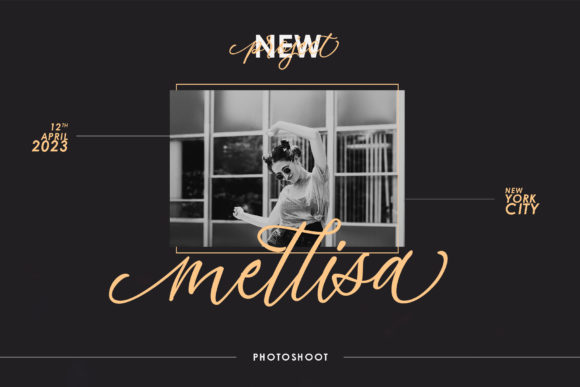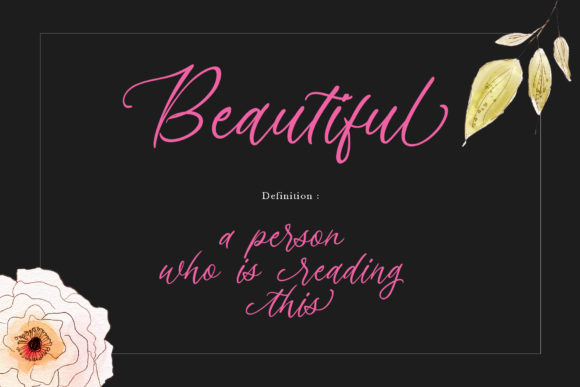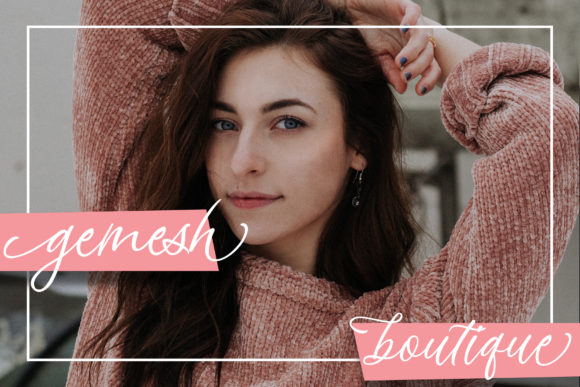
Introduction to Sapha Font
As you sit at your desk, staring blankly at a blank canvas, the cursor blinking away in frustration, it’s moments like these that make you wish you had the perfect design resource to spark some creativity. And that’s exactly what we’re about to dive into – a font that’s been known to bring a smile to designers’ faces: Sapha Font.
With its light and fun handwritten style, Sapha Font has a unique charm that’s hard to resist. Whether you’re working on a high-quality branding project or need a design resource for a creative project, this font is sure to add a touch of personality to your work. And the best part? It’s available for free download, making it a valuable addition to any designer’s toolkit.
Key Features of Sapha Font
- High-Quality Design: Sapha Font is designed with precision and care, ensuring a high-quality result for any creative project.
- Unique Characteristics: Sapha Font features a unique and creative design, making it an excellent choice for designers looking to add a touch of personality to their projects.
Honest Review: Sapha Font
I recently came across the Sapha Font, and I must say, it’s a fantastic addition to any designer’s toolkit. With a high quality aesthetic and transparent background, this font is perfect for creating stunning visual elements for your next creative project.
Here are some of the things that really stand out about the Sapha Font:
- ✨ Elegant and refined design that adds a touch of sophistication to any text
- ✨ Highly customizable, making it easy to adjust to suit your design needs
- ⚠️ Limited language support, which may not be suitable for projects requiring multilingual text
- ⚠️ Some users may find the font a bit too ornate, which can be overwhelming in certain designs
Overall, I’m really impressed with the Sapha Font. It’s a fantastic design resource that’s perfect for creative projects requiring a touch of elegance and sophistication. While it may have some limitations, I believe it’s well worth the download.
Sapha Font
Sapha Font is a high-quality design resource perfect for creative projects. It’s available for free download and features a transparent background, making it easy to customize and integrate into your designs.
Sapha Font is suitable for various design projects, including logo design, infographics, and marketing materials. Its transparent background makes it easy to combine with other design elements.
Experiment with different font sizes, colors, and styles to create unique and visually appealing designs. Use Sapha Font in combination with other design resources to add depth and interest to your projects.